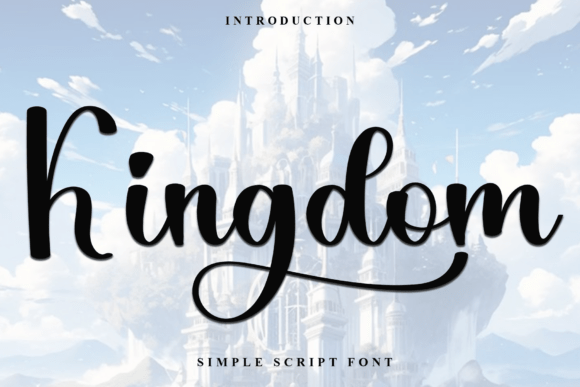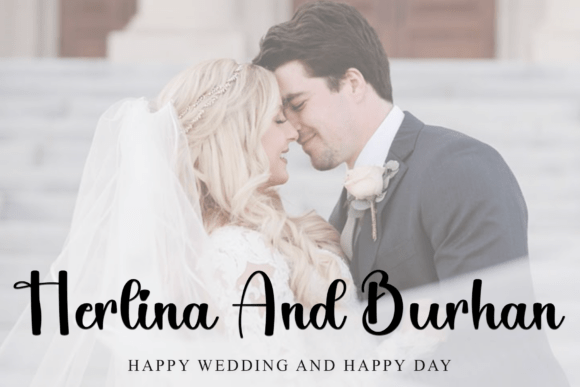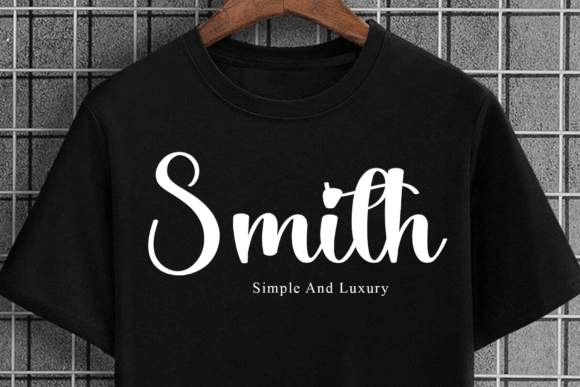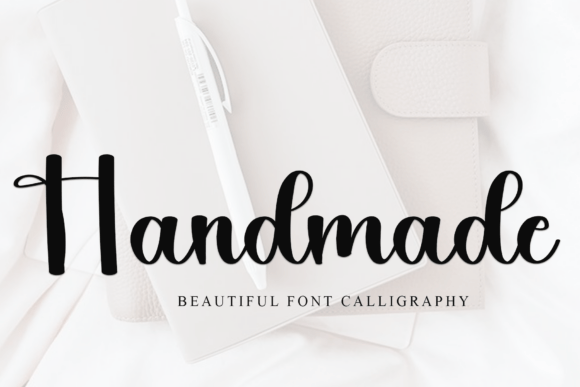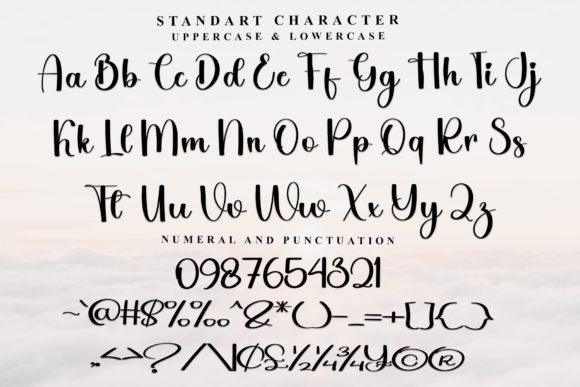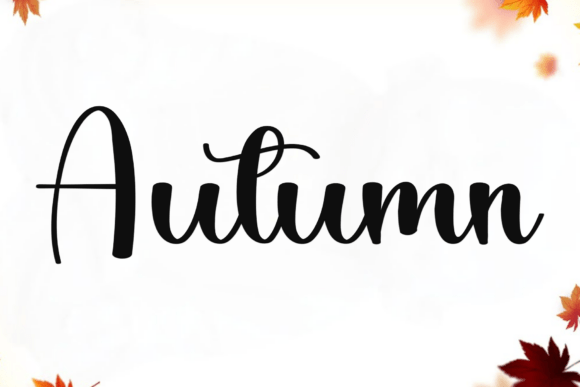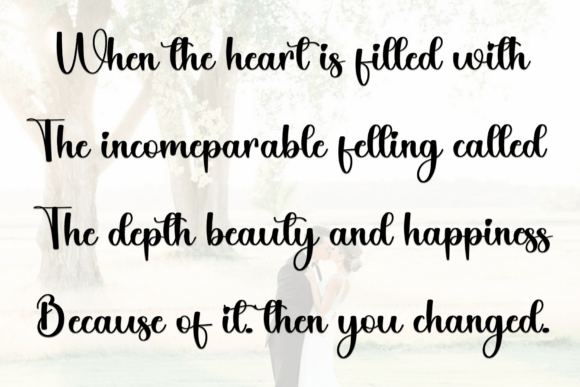
Discover the Royal Touch: Unlocking the Potential of Kingdom Font
As a designer, there’s nothing quite like the thrill of finding that perfect font to bring a project to life. The ‘aha’ moment when everything clicks, and the design starts to take shape is truly magical. For those in the know, the Kingdom Font is a game-changer, offering a soft, unique touch that sets it apart from the rest.
This stunning font is designed to be versatile, making it perfect for a wide range of creative projects, from design to crafting. With its distinctive strokes and natural style, the Kingdom Font is ideal for designers looking to add a touch of elegance and sophistication to their work. Whether you’re working on a branding project, a craft design, or simply want to enhance your personal projects, the Kingdom Font is a valuable addition to your toolkit.
Kingdom Font Key Features
- Font Family: Kingdom Font offers a range of 8 fonts, each with its unique style and characteristics.
- Unique Characteristics: Kingdom Font features a unique blend of traditional and modern elements, making it suitable for a wide range of design projects, including branding, advertising, and editorial content.
Designer Review: Kingdom Font
As a designer, I was excited to dive into the Kingdom Font, a script font designed specifically for titles and headings. ✨ One of the first things that caught my eye was its elegant, royal feel, perfect for luxury brands or formal invitations. The font’s versatility shines in its ability to be used in both digital and print mediums, making it a great addition to any designer’s toolkit.
Here are some key features that work well in Kingdom Font:
- ✨ Elegant, royal feel perfect for luxury brands
- ✨ Highly versatile, suitable for both digital and print
- ✨ Supports a wide range of languages, including Latin, Cyrillic, and Greek
- ✨ Excellent for use in titles, headings, and logos
However, I do have a few concerns:
- ⚠️ Limited character set, which may not be ideal for long blocks of text
- ⚠️ May not be suitable for body text due to its ornate nature
- ⚠️ Some characters may not display correctly on certain devices or platforms
Overall, I would say that Kingdom Font is a solid choice for designers looking for a high-end script font. While it has some limitations, its elegant feel and versatility make it a great addition to any designer’s toolkit. With some careful consideration of its use cases, Kingdom Font can be a valuable asset for any design project.
To get the most out of Kingdom Font, use it for titles, headings, and other large text elements. You can also use it for creating custom logos or branding materials.
Common use cases for Kingdom Font include:
– Creating luxury or high-end branding materials
– Designing elegant or sophisticated websites
– Creating custom invitations or event materials